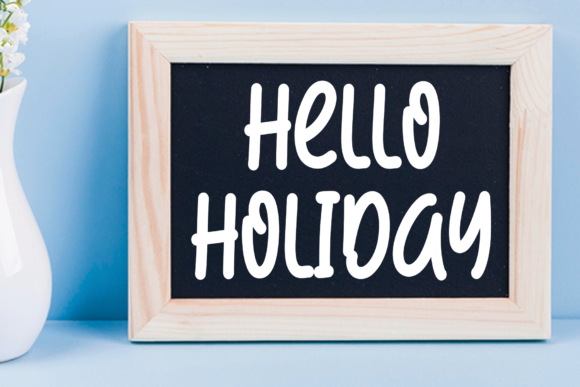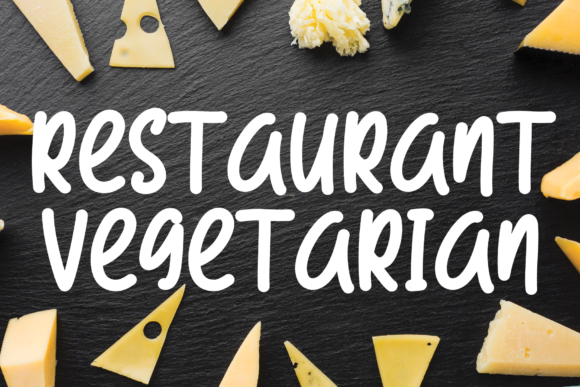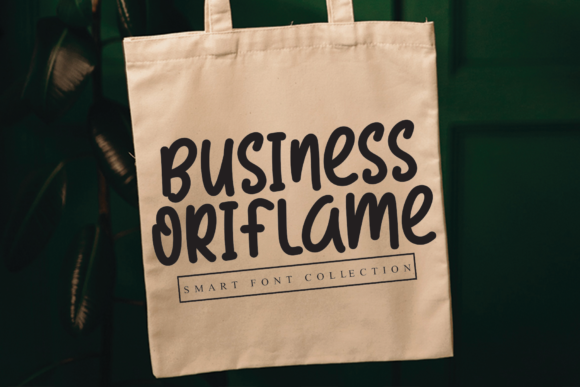
About March Wonderful Font
March Wonderful is a sweet and friendly paint brushed handwritten font. Its natural and unique style makes it incredibly fitting to a large pool of designs. The only limit is your imagination!